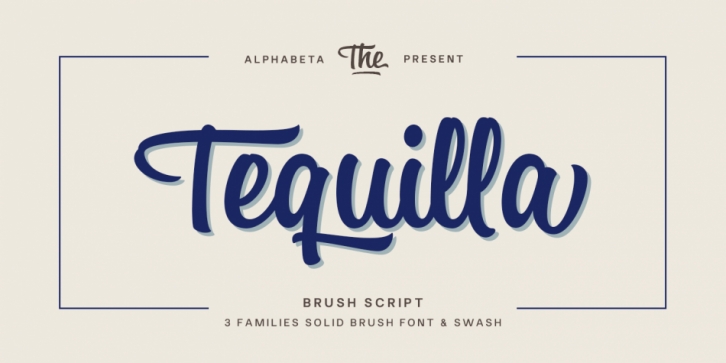
Tequilla Script is a dingbat and brush script font family. This typeface has three styles and was published by Alphabeta.
Say Hi to Tequilla Script!
Tequilla comes 3 families with high-quality script font with swashes. Tequilla Script is a bold script, with clean lines and smooth curve combined with beautiful features!
Plus OpenType features with Stylistic Alternates, Swashes, Ligatures, Stylistic set that allows you to mix and match pairs of letters to fit your design. This font is good for design, t-shirt, logo, labels, badges, posters etc…